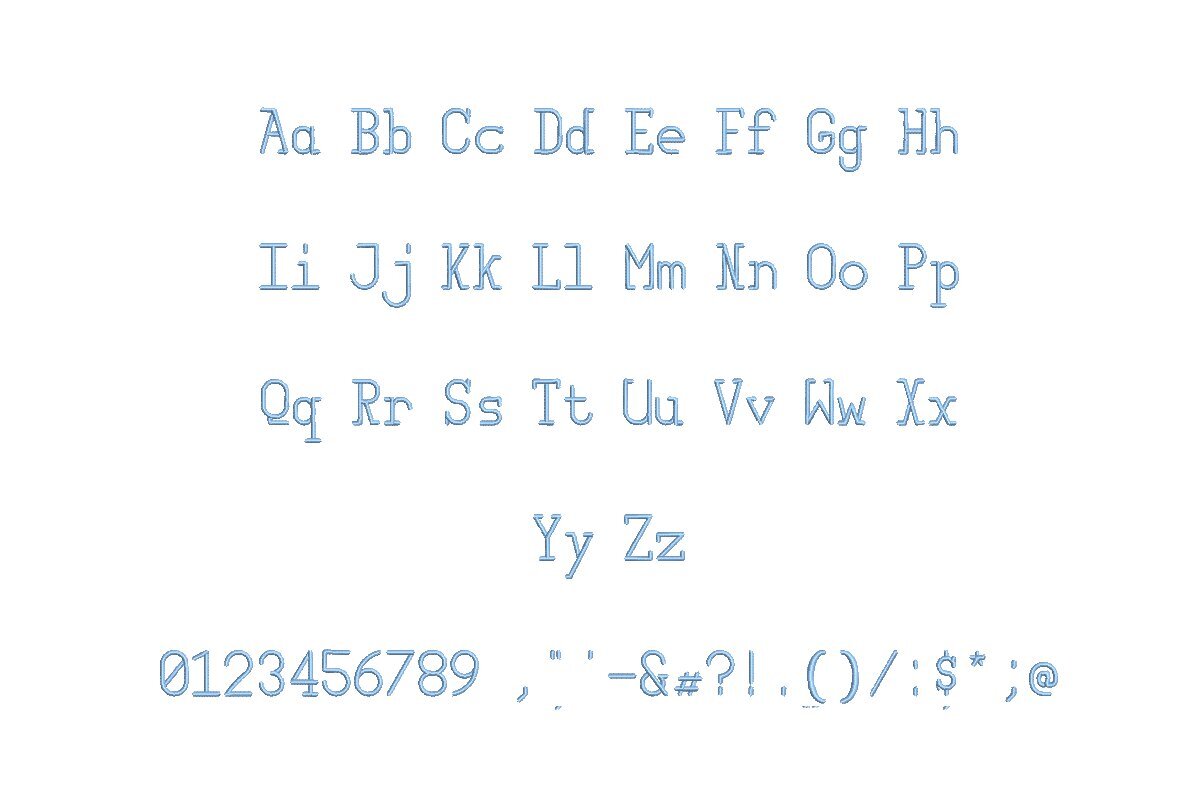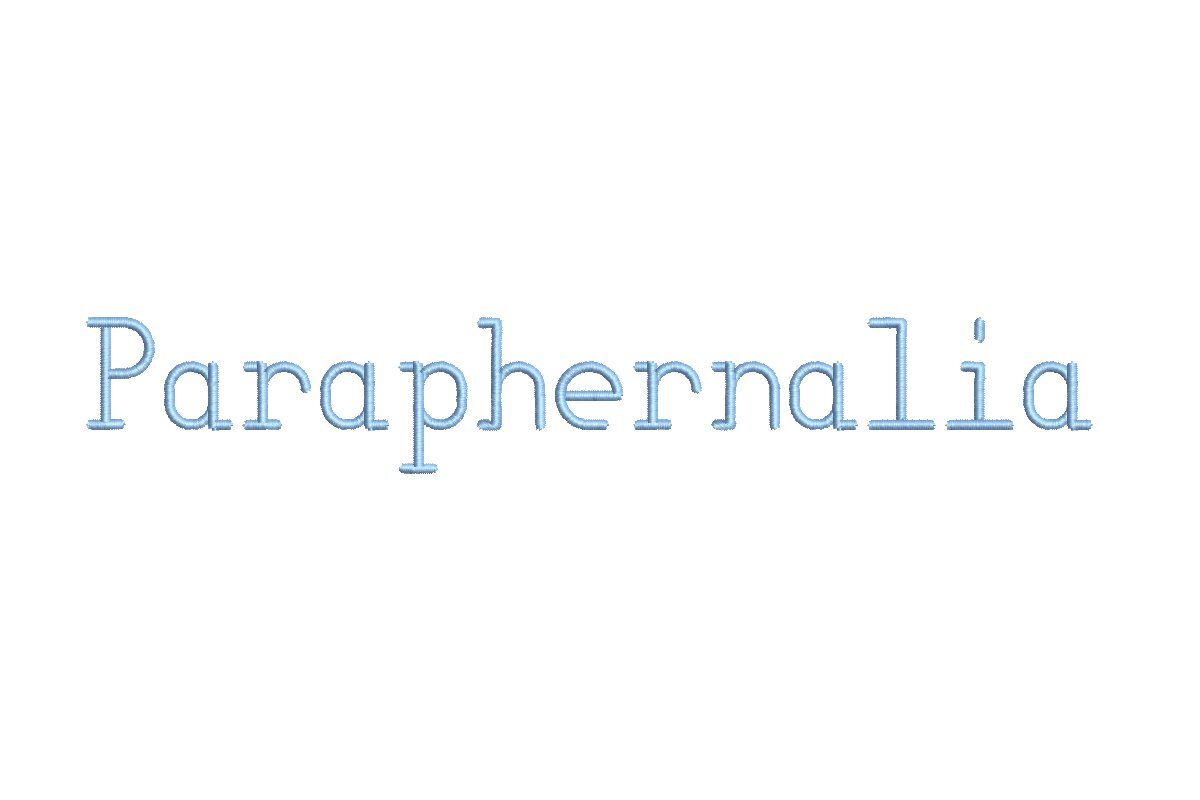
Paraphernalia ESA Font
Introducing Paraphernalia ESA Font - Your Gateway to Unique Embroidery! Expertly tailored for seamless compatibility with Wilcom Studio e4.5.6 and Hatch 3 versions and beyond, this font is your key to crafting truly distinctive embroidery designs. Its avant-garde, unconventional design adds a touch of creativity to your projects, ensuring they stand out effortlessly. Achieve professional-level embroidery with ease, thanks to this user-friendly digitized font, promising precision in every stitch. Dive into a world of limitless creative possibilities with Paraphernalia ESA Font and elevate your Wilcom Studio and Hatch software. Choose originality over the ordinary - upgrade today for an extraordinary embroidery journey. Your designs deserve to be unique.